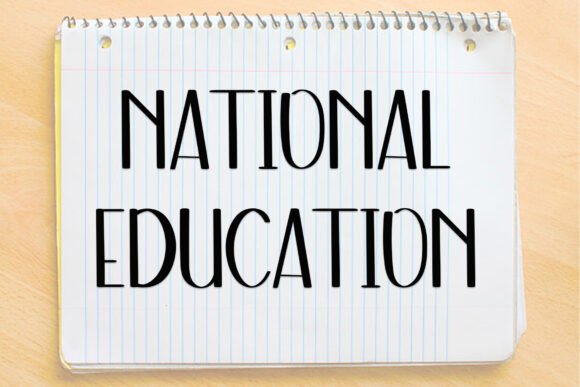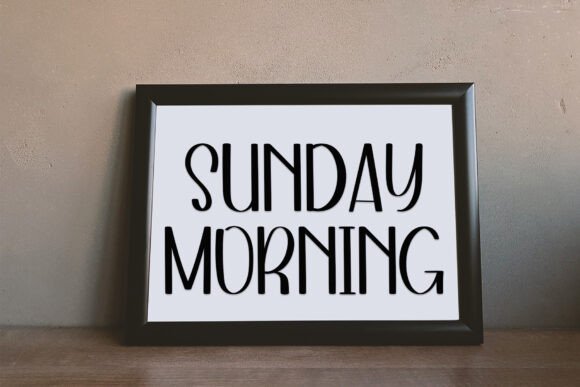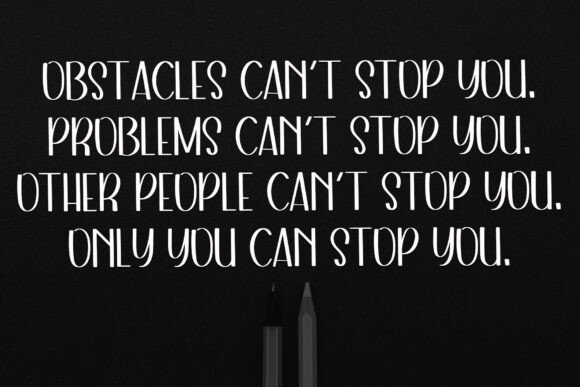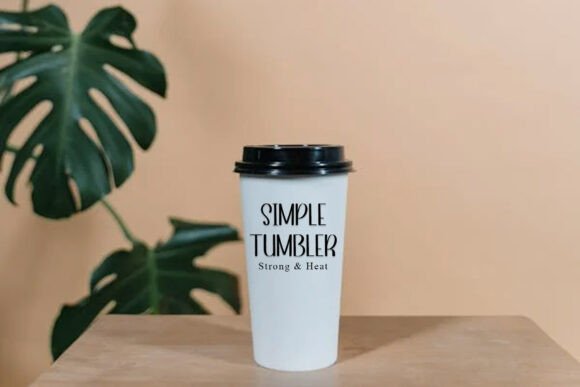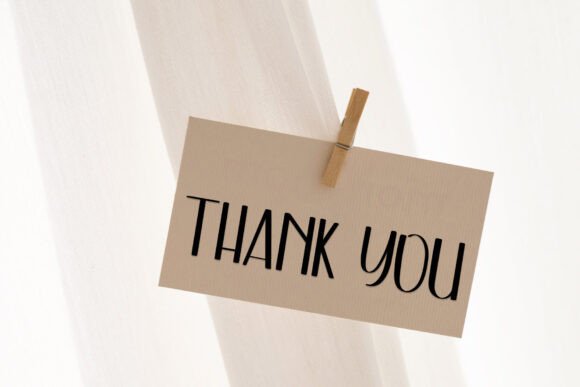
Introduction to Happy Teachers Font
As designers, we’ve all been there – staring at a blank canvas, trying to bring our creative vision to life. The spark of inspiration hits, and suddenly, the possibilities are endless. For those moments when we need a little extra nudge, a trusty design resource can make all the difference. Enter the Happy Teachers Font, a sweet and friendly handwritten font that’s sure to put a smile on your face.
With its natural and unique style, the Happy Teachers Font is the perfect addition to any creative project. Whether you’re working on a personal project or a commercial design, this font is sure to bring a touch of warmth and personality to your work. And the best part? It’s available for free download, making it an accessible design resource for designers of all levels.
Key Features of Happy Teachers Font
- High-quality design: This font features a unique and playful design, perfect for adding a touch of happiness to your project.
- Unique characteristics: The Happy Teachers Font features a distinctive and cheerful design, with a range of letterforms that evoke a sense of happiness and joy.
- Perfect for educational projects: The font’s playful design makes it an ideal choice for educational projects, such as teaching materials, lesson plans, and school-related designs.
Honest Review: Happy Teachers Font
I recently had the chance to work with the Happy Teachers Font, a free download that’s quickly become a design resource I turn to when working on creative projects. At first glance, I was impressed by the font’s high-quality design, perfect for adding a touch of personality to educational materials and school-related content.
What works well: ✨ The font’s transparent background and clean lines make it easy to use, even for those with limited design experience. The font’s bold and playful style is also perfect for adding visual interest to presentations, posters, and other educational materials.
- Transparent background and clean lines make it easy to use
- Perfect for educational materials, school-related content, and more
Limitations: ⚠️ While the font is perfect for many projects, it may not be suitable for more formal or professional applications. Additionally, the font’s bold style may not be ideal for text-heavy content.
Overall impression: I’m a big fan of the Happy Teachers Font and would definitely recommend it to designers looking for a fun and playful font to add to their design resource library.
How to Use Happy Teachers Font
The Happy Teachers Font is a unique and creative design resource perfect for educational projects. With a transparent background, this high-quality font is ideal for adding a personal touch to your work.
Tips for Getting the Most Out of Happy Teachers Font
To get the most out of the Happy Teachers Font, consider the following tips:
- Experiment with different font sizes and styles.
- Combine the font with other design elements for a unique look.
- Use the font in creative projects, such as educational posters or infographics.
The Happy Teachers Font is ideal for:
- Creating educational materials, such as worksheets and quizzes.
- Designing posters and flyers for schools and educational events.
- Developing branding materials for educational institutions.